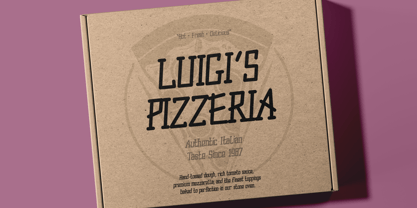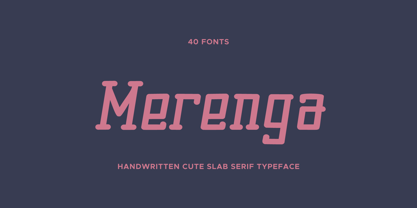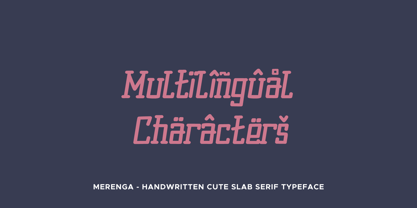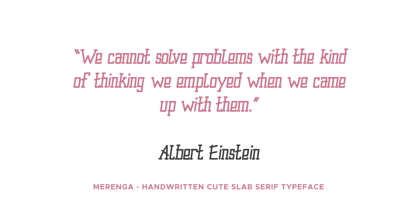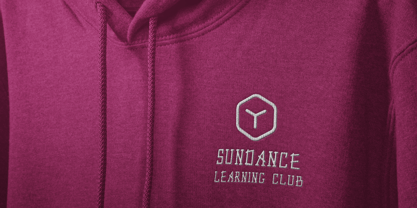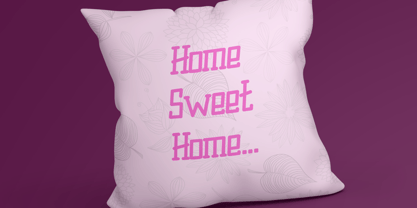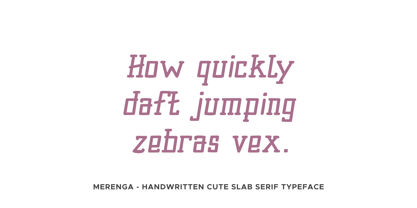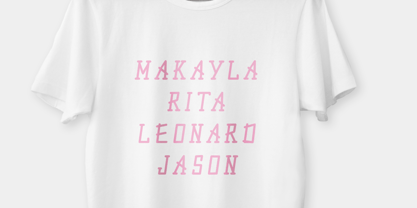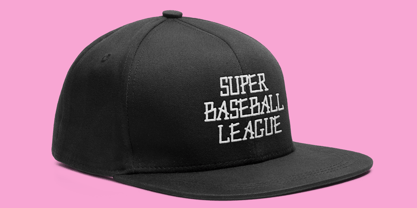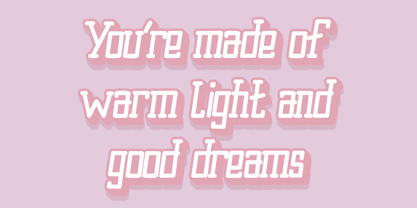
Merenga is a playful handwritten slab serif that blends warmth, texture, and personality into a versatile type family. Designed to feel both approachable and expressive, it captures the charm of casual lettering while maintaining the sturdy rhythm of a slab serif.
With its slightly irregular strokes and handcrafted feel, Merenga is perfect for projects that need a human touch without sacrificing clarity. From branding and packaging to editorial design, posters, and social media graphics, it delivers a friendly yet confident voice.
The family includes a wide range of expressive styles—from clean and smooth to rough, eroded, and textured variations—allowing designers to shift tone effortlessly within the same visual language. Whether you want a polished handwritten look or a distressed, organic aesthetic, Merenga provides the flexibility to explore both.
Its extensive language support makes it suitable for global use, covering a broad spectrum of Latin-based languages across different regions.
Merenga’s multiple stylistic sets—such as Brush, Cut, Ink, Rough, Rust, Scratch, Worn, and more—expand creative possibilities, while matching italics and outline versions offer additional depth and layering options.
This is a typeface built for storytelling—playful, tactile, and full of character.